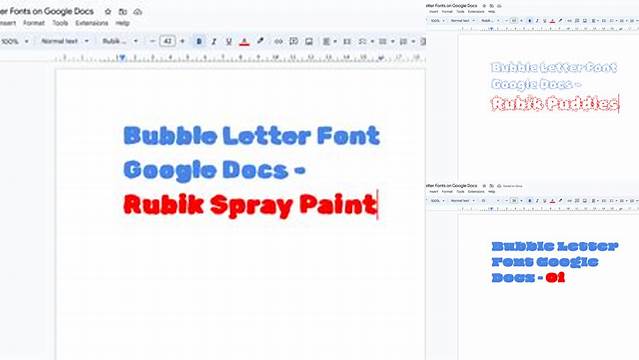
Google Docs Bubble Letter Fonts: A Cute Guide
Hey guys! Ever wanted to add a little pizzazz to your Google Docs, maybe make those titles pop or add a fun, playful vibe to a project? Well, you're in luck because we're diving deep into the awesome world of cute bubble letter fonts on Google Docs. Seriously, these fonts are a game-changer for making your documents look way more engaging and, well, cute! Forget boring old Times New Roman; it's time to get creative and explore some seriously fun typography options. We'll cover how to find them, how to use them effectively, and why they're perfect for everything from school projects to personal notes. So, buckle up, because we're about to make your Google Docs look absolutely adorable!
Exploring the Charm of Bubble Letter Fonts in Google Docs
Let's get real, guys, sometimes a document just needs a little something extra, right? That's where cute bubble letter fonts on Google Docs come into play. These aren't just any fonts; they're the ones that bring a smile to your face, reminiscent of childhood drawings and playful designs. Think of those thick, rounded letters that look like they're ready to float away â that's the magic of bubble letters! They instantly inject a sense of fun, approachability, and pure joy into your text. Whether you're creating a flyer for a school bake sale, designing a birthday invitation, or even just doodling ideas in a personal journal within Google Docs, these fonts make your words stand out in the most delightful way. They're particularly fantastic for headings and titles, grabbing attention immediately and setting a lighthearted tone for the rest of your content. Plus, they work wonders for emphasis on specific words or phrases, making them a versatile tool in your typographic arsenal. We're talking about fonts that don't just convey information, but also convey a feeling â and with bubble letters, that feeling is overwhelmingly positive and cheerful. So, ditch the dull and embrace the delightful; it's time to make your Google Docs as visually appealing as they are informative, and these bubble fonts are your secret weapon to achieving that perfectly cute and captivating look.
Finding Adorable Bubble Fonts for Your Google Docs Projects
The Benefits of Using Rounded and Puffy Typography
Let's talk about why using cute bubble letter fonts on Google Docs is actually a brilliant move, beyond just looking good. These rounded, puffy styles aren't just about aesthetics; they bring tangible benefits to your document's readability and overall impact. Firstly, the inherent softness and roundness of bubble letters make them incredibly friendly and inviting. This is crucial when you want your audience to feel comfortable and engaged with your text, especially for informal communication, creative projects, or marketing materials aimed at a younger demographic. They convey a sense of playfulness and approachability that more rigid, traditional fonts simply can't match. Think about it: would a stern, sharp font make you feel as welcome as a bouncy, rounded one? Probably not! Another significant advantage is enhanced visual appeal and memorability. Unique typography can make your content stand out in a sea of similar documents. Bubble fonts, with their distinctive shapes, are highly recognizable and can make your headings or key phrases stick in your reader's mind. This is great for branding or making a specific announcement. Furthermore, for certain applications, these fonts can actually improve readability, particularly for younger readers or individuals who might find standard fonts a bit overwhelming. The thicker strokes and clear, rounded forms are often easier to process visually. They break up the monotony of text and can guide the reader's eye more effectively through the content, especially when used for titles or section breaks. So, when you choose a bubble font, youâre not just picking a style; youâre making a strategic choice to enhance engagement, improve visual recall, and create a more positive user experience. Itâs a win-win, guys!
Enhancing Visual Appeal with Playful Lettering
Guys, let's get serious about making your Google Docs look chef's kiss amazing. One of the simplest yet most effective ways to do this is by incorporating cute bubble letter fonts on Google Docs. We're talking about typography that doesn't just sit there; it dances! Playful lettering, like the charming bubble styles, adds a layer of personality and visual excitement that standard fonts often lack. Imagine a school newsletter with a standard font versus one with a bubbly, vibrant heading â which one are you drawn to more? Exactly! Bubble fonts have this inherent quality of being inviting and fun. They instantly communicate a sense of creativity and lightheartedness, making your content more approachable and enjoyable to read. This is super important if you're designing invitations, crafting creative stories, making posters, or even just trying to make your notes more interesting. The rounded, voluminous shapes of bubble letters create a soft, friendly aesthetic that can make even the most mundane information seem more engaging. They can also be used strategically to highlight key information, like titles, subheadings, or important call-to-action phrases. By using a distinct and visually appealing font like a bubble letter style, you're not just presenting information; you're creating an experience. It draws the reader in, holds their attention, and makes your document memorable. Plus, let's be honest, it's just plain fun to work with fonts that have character! So, don't shy away from experimenting with these playful styles. They are your secret weapon for transforming ordinary documents into visually striking and delightful pieces of work that people will actually want to read. Embrace the fun, embrace the cute, and let your documents shine!
Why Choose Rounded Fonts for a Softer Feel?
So, why exactly should you be reaching for cute bubble letter fonts on Google Docs when you want a specific vibe? It all boils down to the inherent qualities of rounded typography. Unlike sharp, angular fonts that can sometimes convey a sense of seriousness, formality, or even harshness, rounded fonts exude a distinct softness and approachability. Think about the difference between a jagged lightning bolt and a plump, friendly cloud â thatâs the kind of emotional difference weâre talking about! These bubble letters, with their smooth curves and generous forms, naturally create a welcoming and gentle atmosphere. This is incredibly beneficial when youâre aiming for a friendly, informal, or nurturing tone in your documents. For example, if youâre creating materials for a childrenâs event, designing a baby shower invitation, or writing a personal journal entry, rounded fonts are your go-to. They communicate warmth, comfort, and ease, making your readers feel instantly at home. Furthermore, the visual weight and fullness of bubble fonts can also help to anchor your design and create strong focal points. A bold, rounded heading can effectively draw the eye and guide the readerâs attention through the page. They add a visual heft that is both engaging and reassuring. So, when you choose a rounded or bubble-style font, you're not just making a stylistic choice; you're making an emotional one, selecting typography that speaks volumes about the tone and personality of your message. Itâs about creating a connection and making your content feel as good as it looks. Guys, itâs all about setting the right mood, and rounded fonts are masters at creating that cozy, approachable, and undeniably cute feel!
Using Bubble Fonts for Creative Titles and Headings
Alright team, let's talk about making your Google Docs titles and headings absolutely sing! This is where cute bubble letter fonts on Google Docs truly shine. Forget blending in; we want your titles to grab attention and make people say,